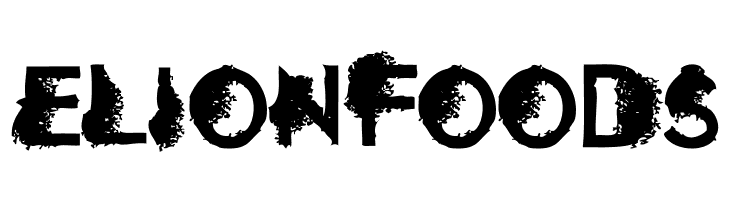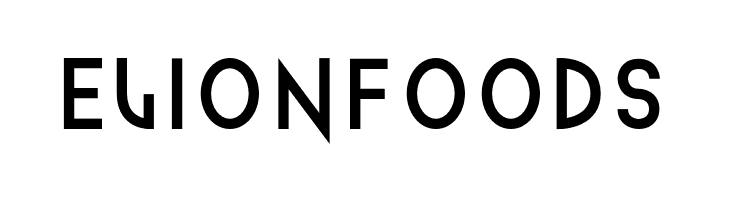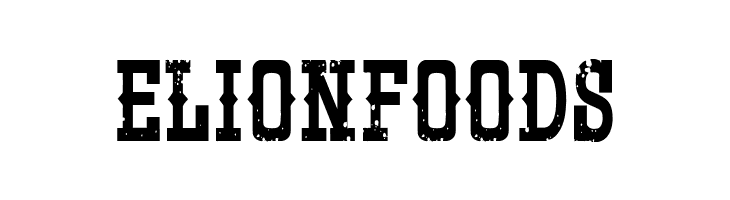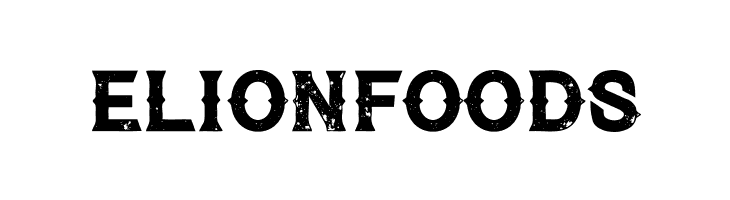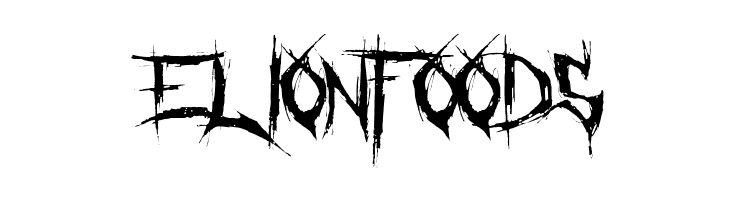
A bold, distressed font with a futuristic and grunge aesthetic.
A bold, distressed font with a grunge and rebellious style.
A bold, futuristic font with sharp, angular lines and a geometric design.
A bold, futuristic font with sharp, angular lines and a techno-inspired design.
A bold, distressed font with a rugged, vintage appeal.
A bold, playful handwritten font with rounded, friendly characters.
A playful, bold handwritten font with a whimsical and magical flair.
A bold, distressed font with a rugged, vintage appearance.
A distressed, jagged font with a chaotic and rebellious style.